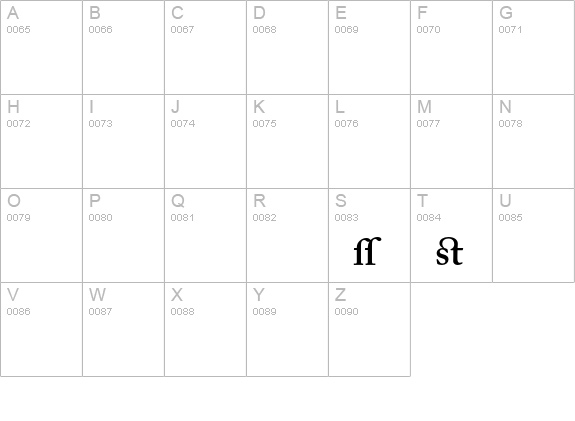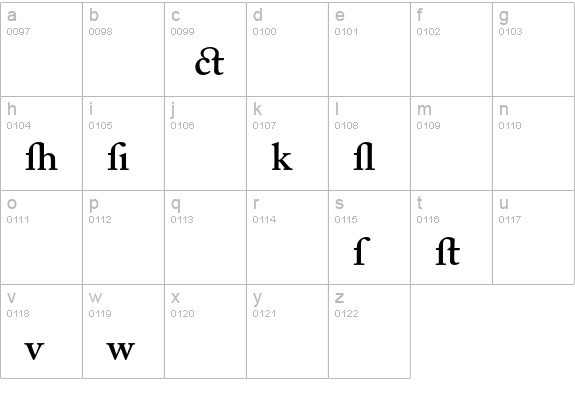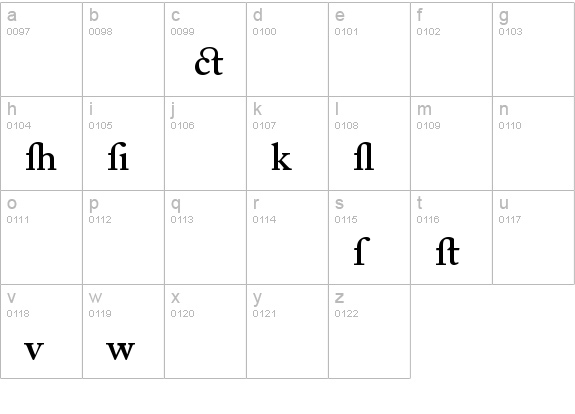
Adobe Caslon Semibold Alternate Font Details
Adobe Caslon Semibold Alternate is a sub-bold, structured variant in the Adobe typeface family \xE2\x80\x94 well suited to sub-headlines and emphasised passages.
Adobe Caslon Semibold Alternate font is a classic and elegant typeface that exudes sophistication and professionalism. With its robust and prominent appearance, this font is perfect for conveying a sense of strength and authority in design projects. The slightly condensed letterforms of the Semibold Alternate style add a touch of modernity while still maintaining the timeless charm of the Caslon typeface. This versatile font is suitable for a wide range of applications, from editorial design and branding to packaging and advertising. Its bold yet refined presence makes it a popular choice for headlines, titles, and other prominent text elements that need to stand out. The Adobe Caslon Semibold Alternate font strikes the perfect balance between tradition and innovation, making it a go-to option for designers looking to make a lasting impression. Best of all, Adobe Caslon Semibold Alternate font is available for free download at FontsMarket.com, allowing designers to access this premium typeface without any cost. With its combination of style, versatility, and accessibility, this font is a valuable addition to any designer's toolkit.